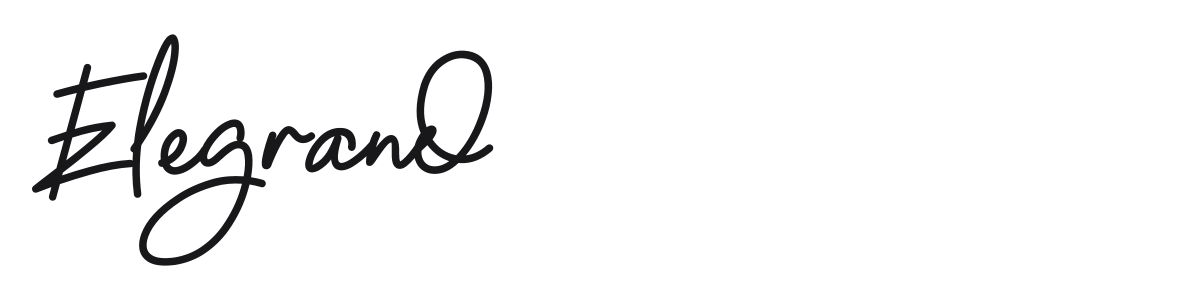
Elegrand
Elegrand is a casual handwritten script with flowing connected strokes and a confident, relaxed pen energy. Long sweeping ascenders and descenders give it an airy, signature-like quality that sits comfortably between formal and everyday. It works well for brand names, product packaging, and any context calling for a personal, handcrafted touch.